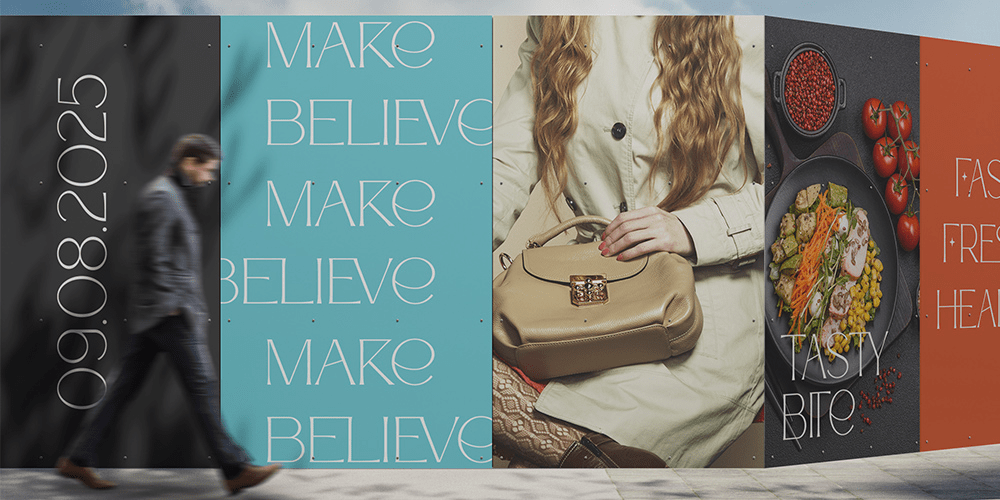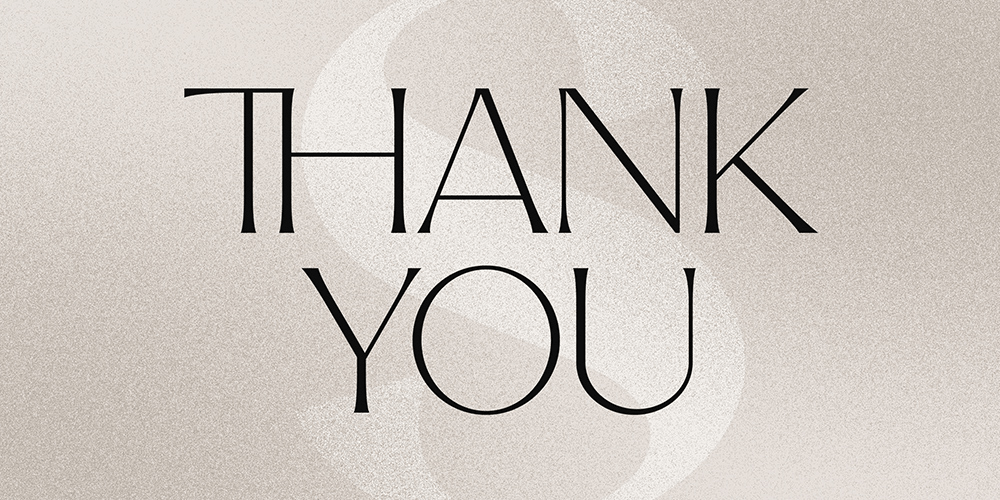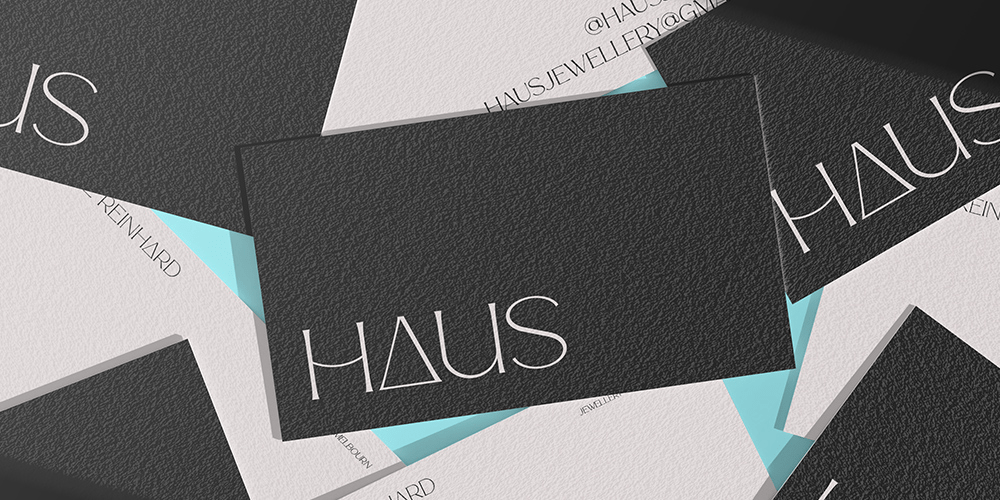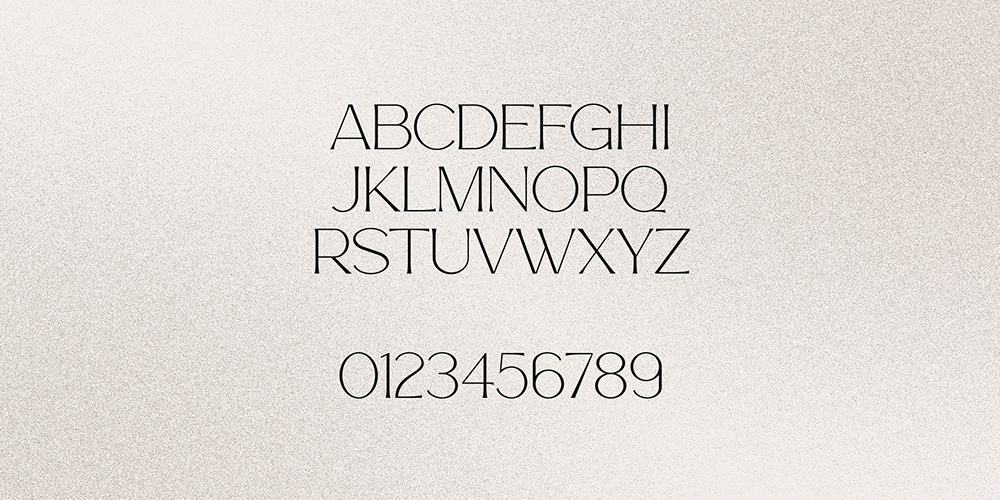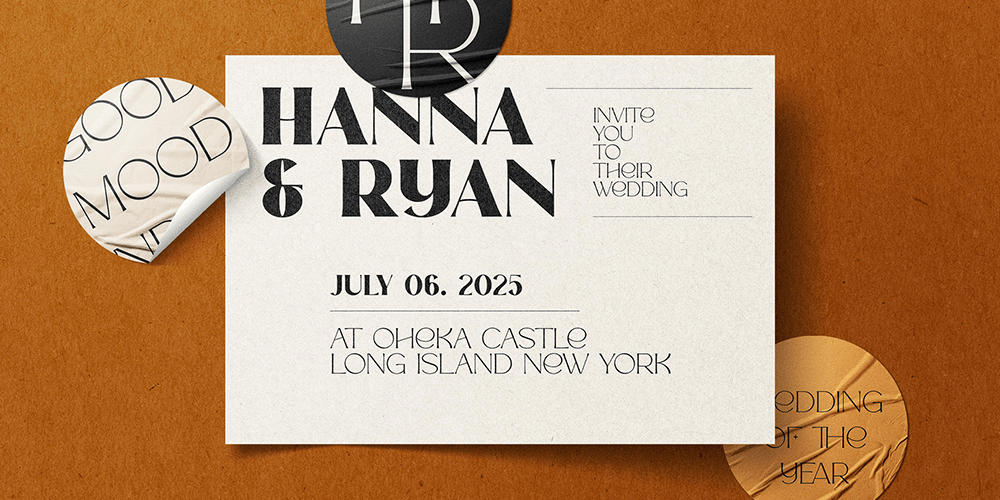
Story Type
Font Family by VP Creative Shop
Introducing Story Type, a versatile and elegant font family perfect for modern design projects. Featuring 9 weights with matching italics, this typeface supports 87 languages, complete with ligatures and alternate glyphs for creative flexibility. Ideal for branding, editorial layouts, packaging, and digital design, Story Type combines sophistication with functionality. Elevate your designs with this timeless font!